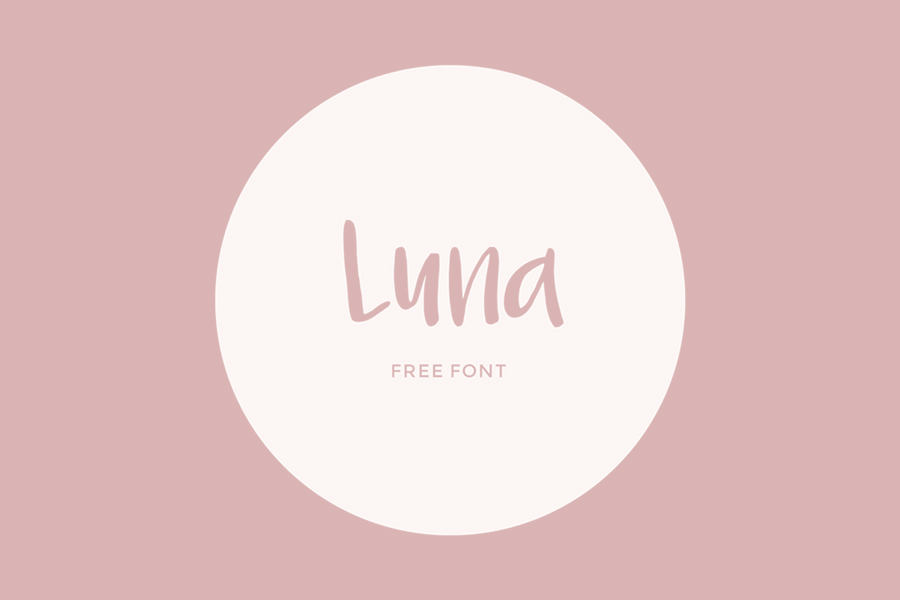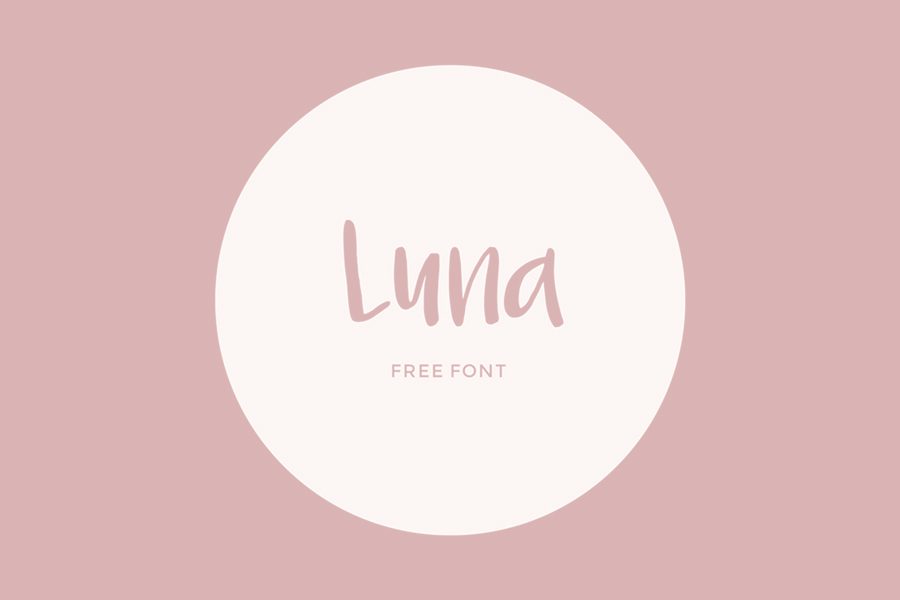
Luna is a quirky handwritten font that represents the feeling of feminine, joy, and casual. This free font has a big contrast and so legible, made it great to use on something fun such as scrapbooks, wedding invitations, greeting cards, blog headings, etc
Luna – Free Font
Luna is a quirky handwritten font that represents the feeling of feminine, joy, and casual. This free font has a big contrast and so legible, made it great to use on something fun such as scrapbooks, wedding invitations, greeting cards, blog headings, etc